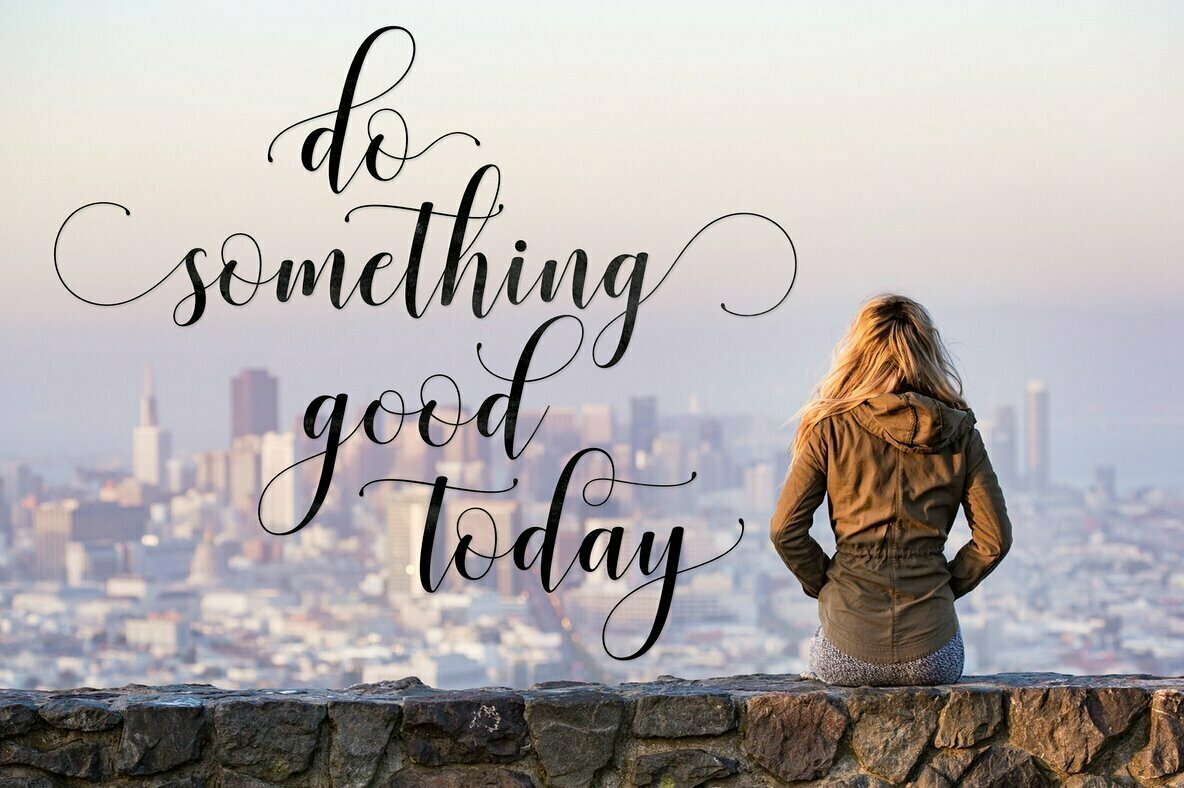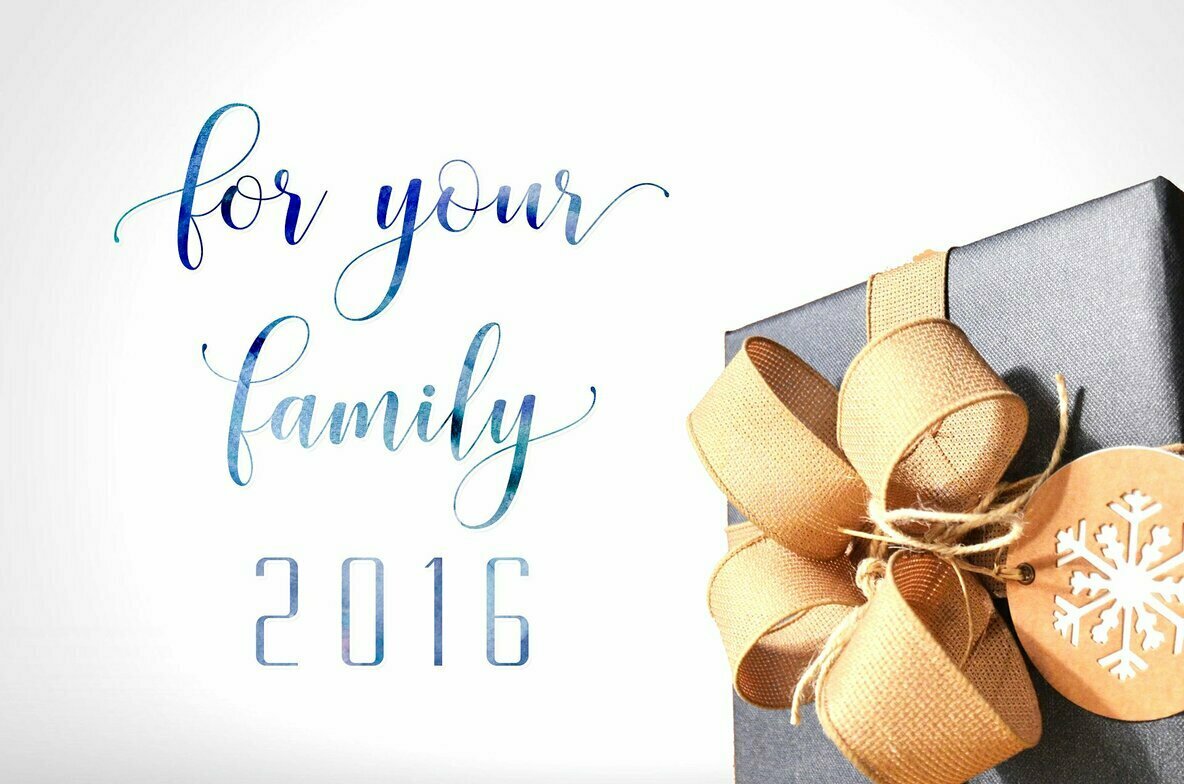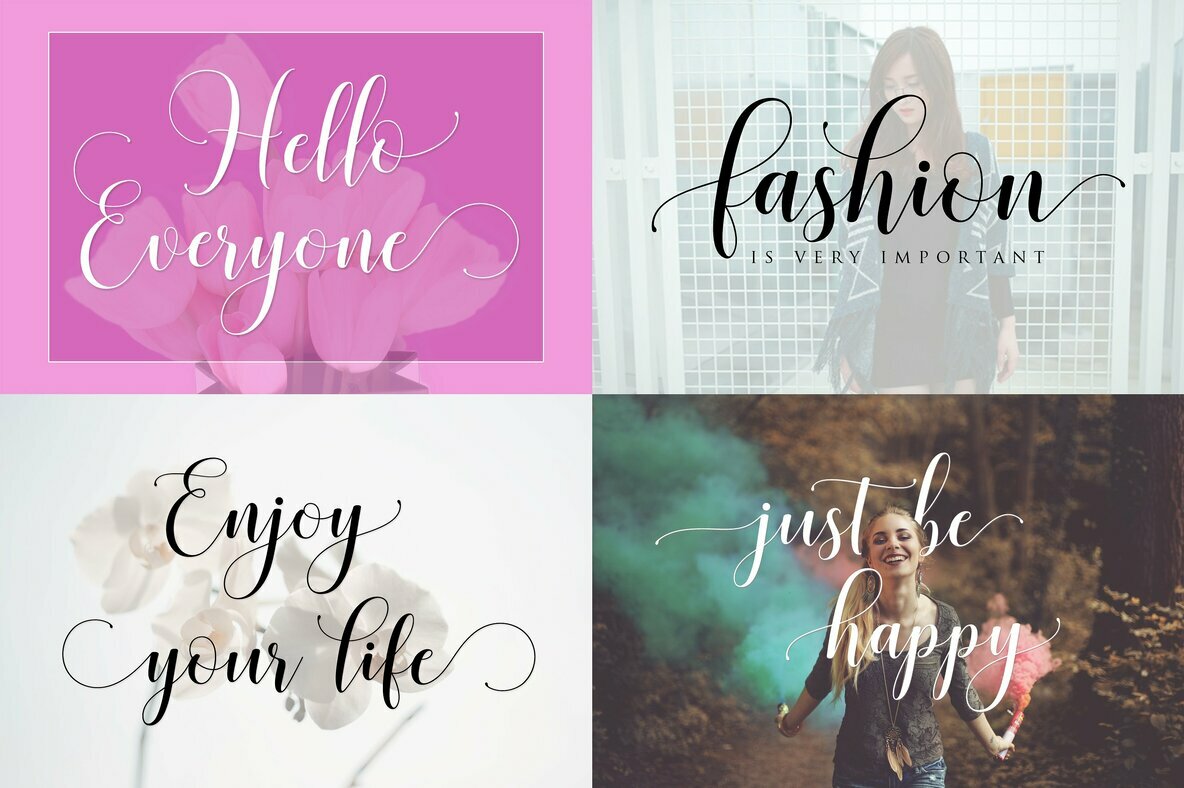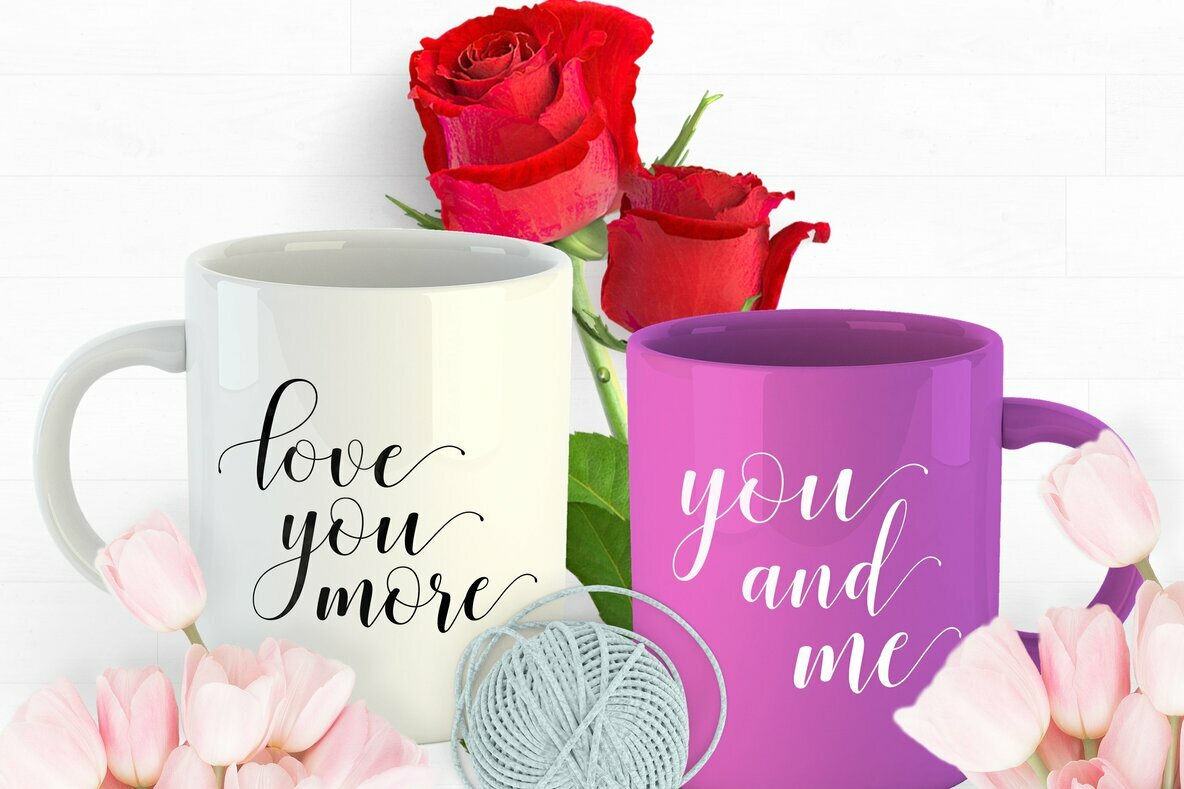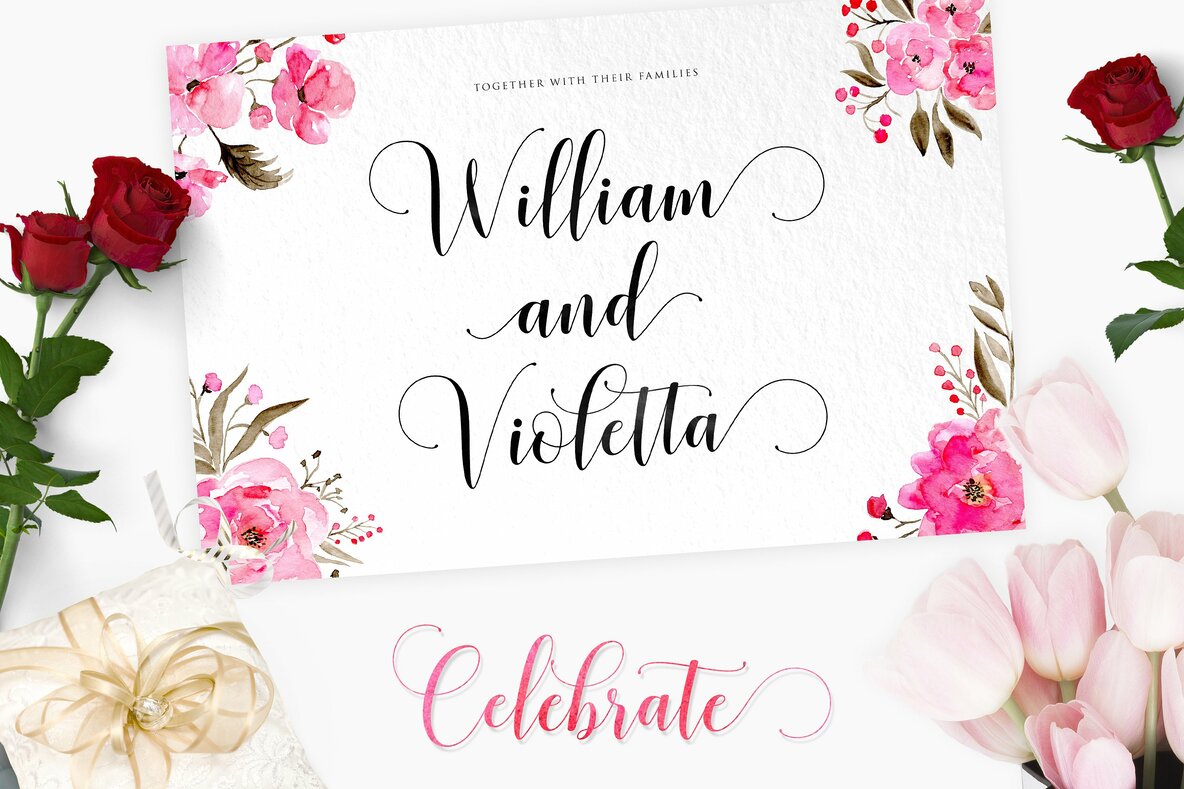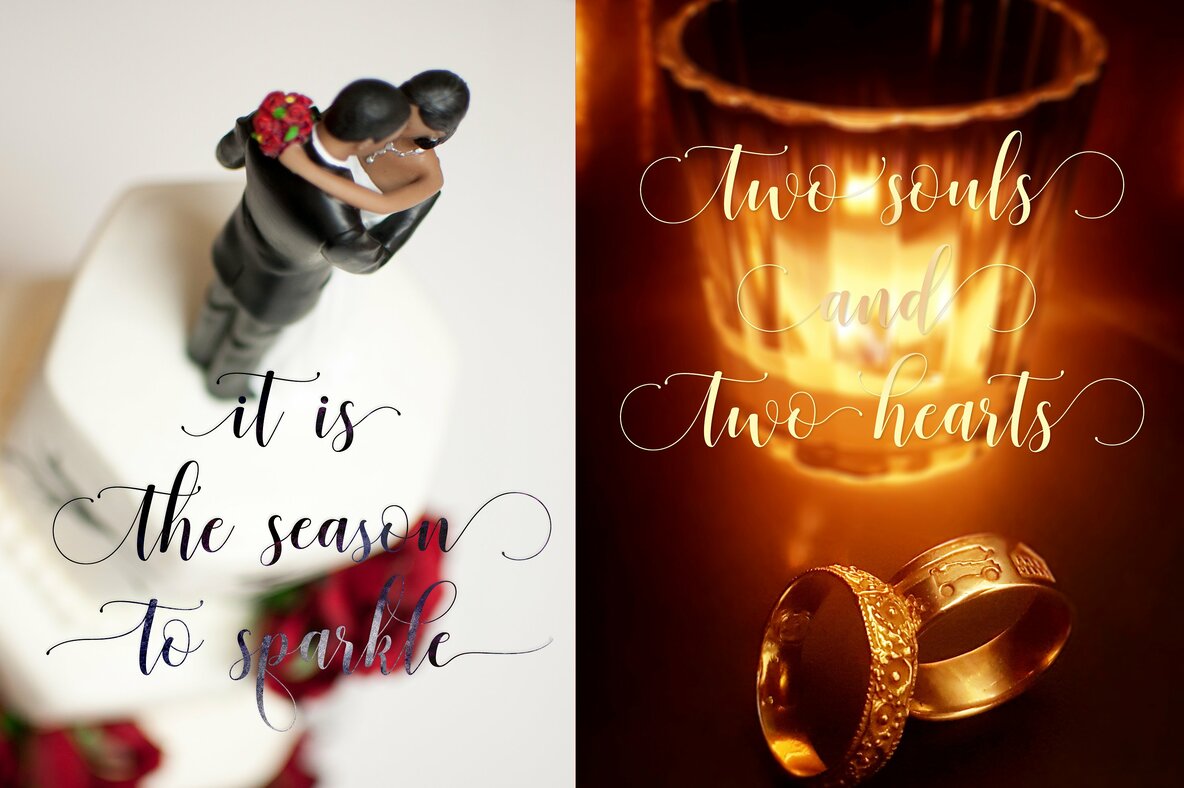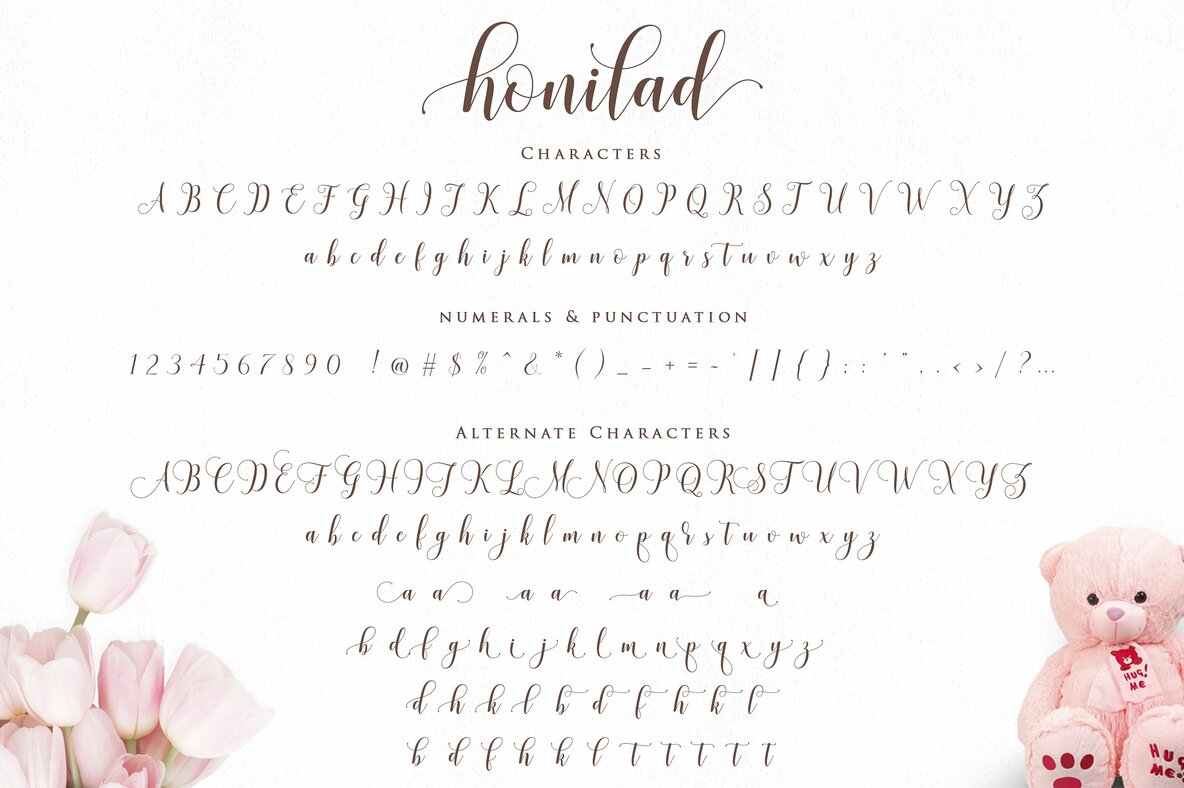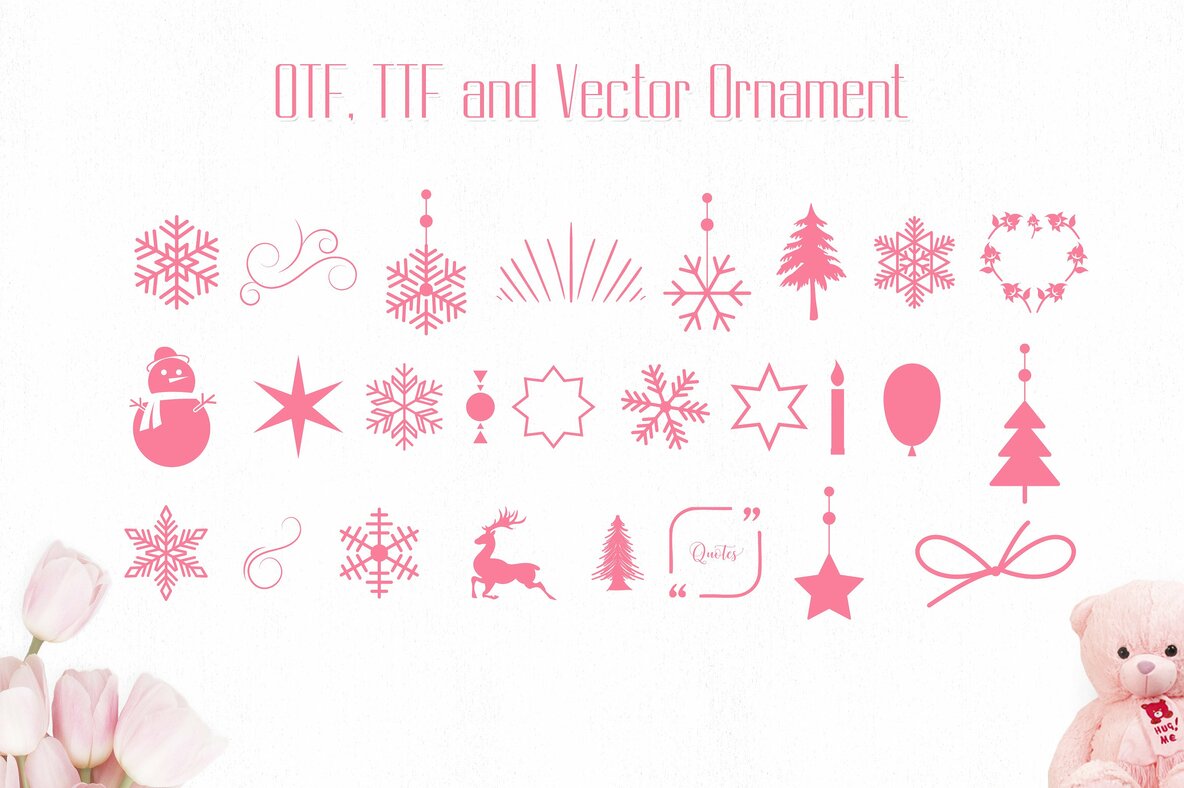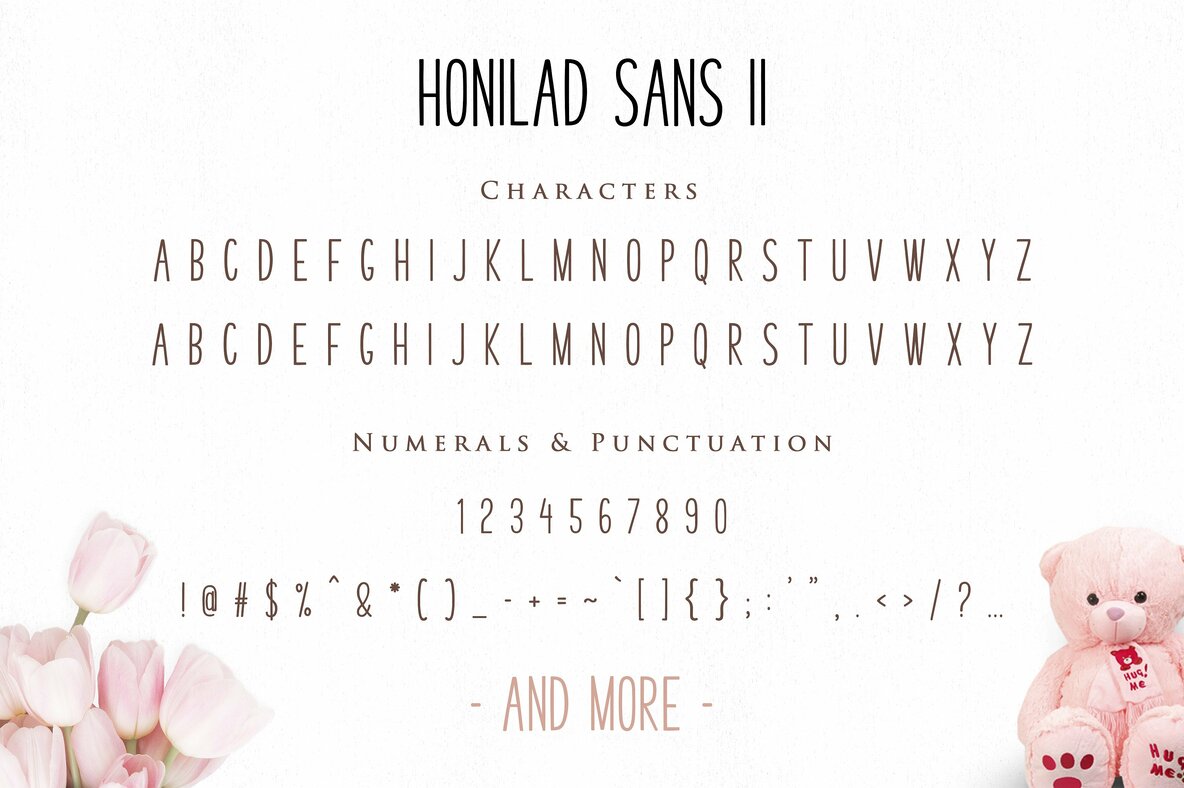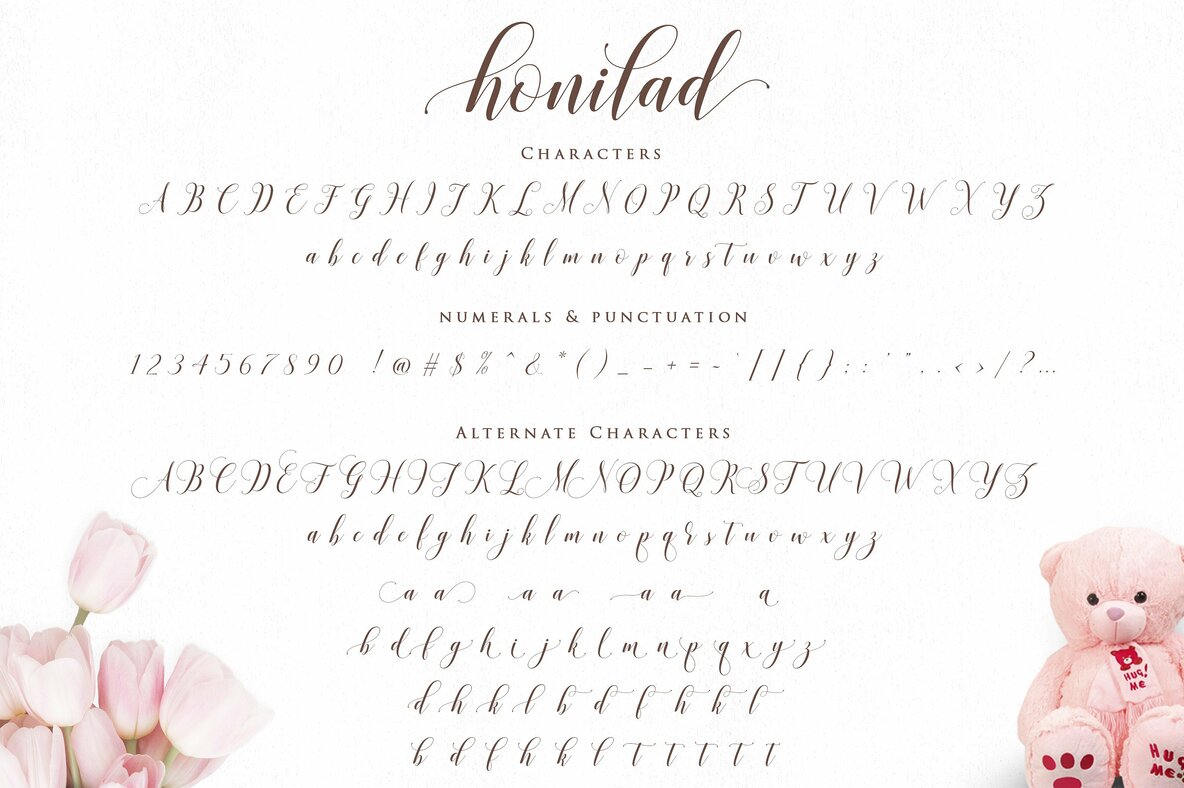
Honilad Script Font
Honilad Script combines classic elegance with contemporary flair, offering a unique, imperfect style that flows like a graceful dance of letters. Designed with versatility in mind, this font is ideal for various projects including weddings, events, invitations, and more. Features: Honilad Script offers alternate glyphs and swirls, accessible via OpenType features in design software like Adobe Illustrator and CorelDraw. Even without these programs, alternate characters are available through Font Book on Mac or Character Map on Windows, providing full creative freedom to designers.Honilad Script: A Dance of Letters with a Modern Twist